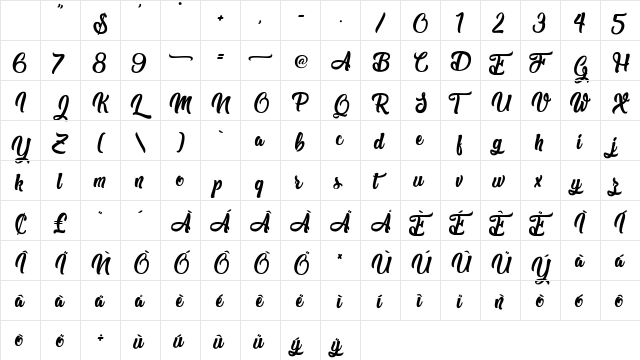
Complete The West Gate Regular glyph index. Displaying only characters natively supported by The West Gate Regular font.
The West Gate is a composed and adaptable typeface that performs quietly and consistently across a wide range of design contexts.